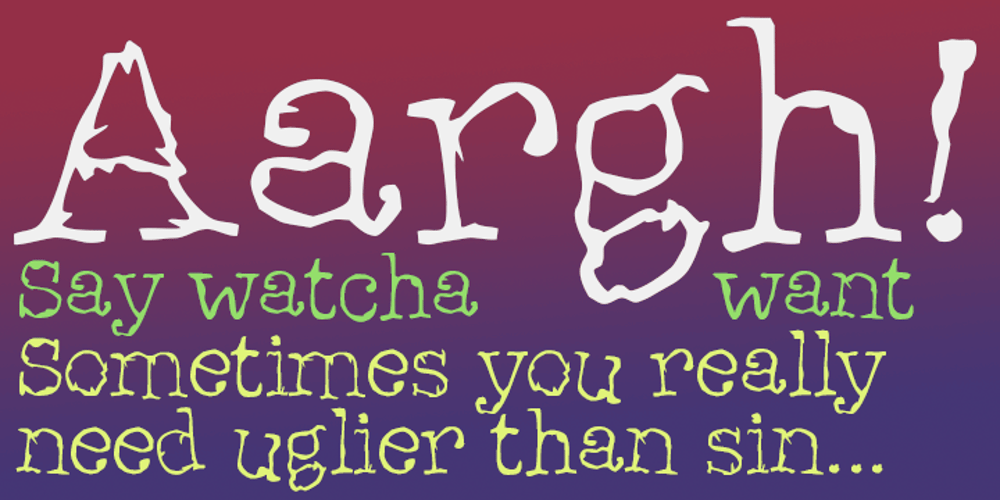
Aargh!
Aargh! font
Aargh! Font Family was designed by David Bergsland and published by Hackberry Font Foundry. Aargh! contains 2 styles and family package options. Aargh is a deconstructed, twisted mess of what maybe used to be Courier or Typewriter that is maybe a little tight for the genre, but it is effective.